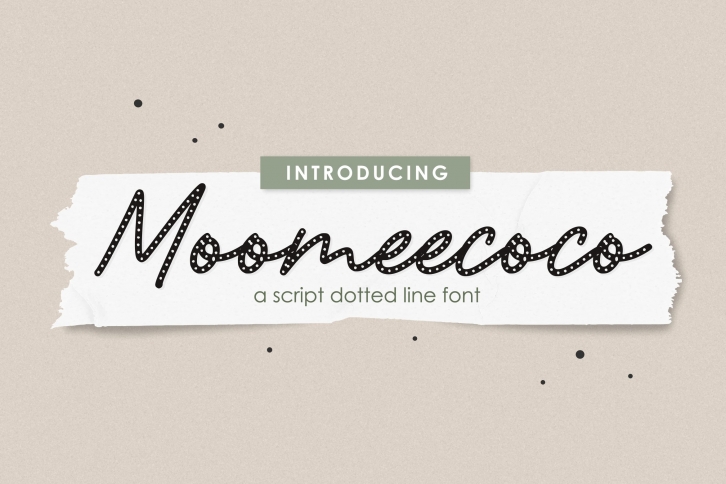
Moomeecoco is a gorgeous font that was realeased on August 6, 2022. The font can be used in many style contexts and design environments. Perfect for invitations, magazines, websites, logos, and more! It was designed by Allouse Studio and the file size is 18.10 MB. Thanks for checking out this font!